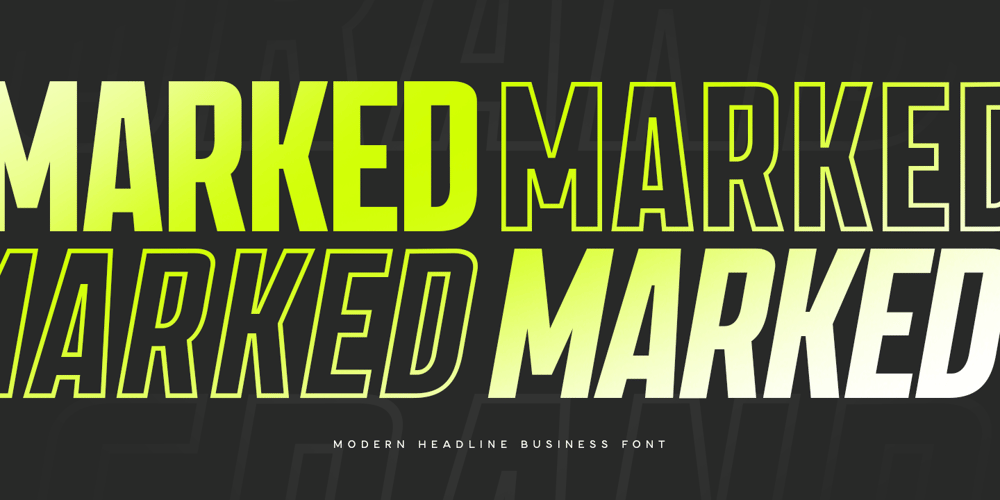
Marked Font Family was designed by Zamroni Hamzah and published by Sensatype Studio. Marked contains 4 styles and family package options. A Modern Headline Corporate font that we created special for Business branding needs, with extra 4 variations in unique shape of font will be ready to add value of your brand. It so nice to leverage designer or product owner that need solutions to make their design look more Professional and Modern. And specially for Marked font, We prepared 4 variation of unique characters and any alternative of them to help you create unlimited variations for your creative needs.Marked Modern Headline Business Font ready with: 4 options (Regular, Italic, Outline-Regular, Outline-Italic) of font style to get unique creative characters 4 format already Preview as a inspirations that you can do with Marked font Ready with Lowercase and Uppercase characters Wish you enjoy our font. ๐